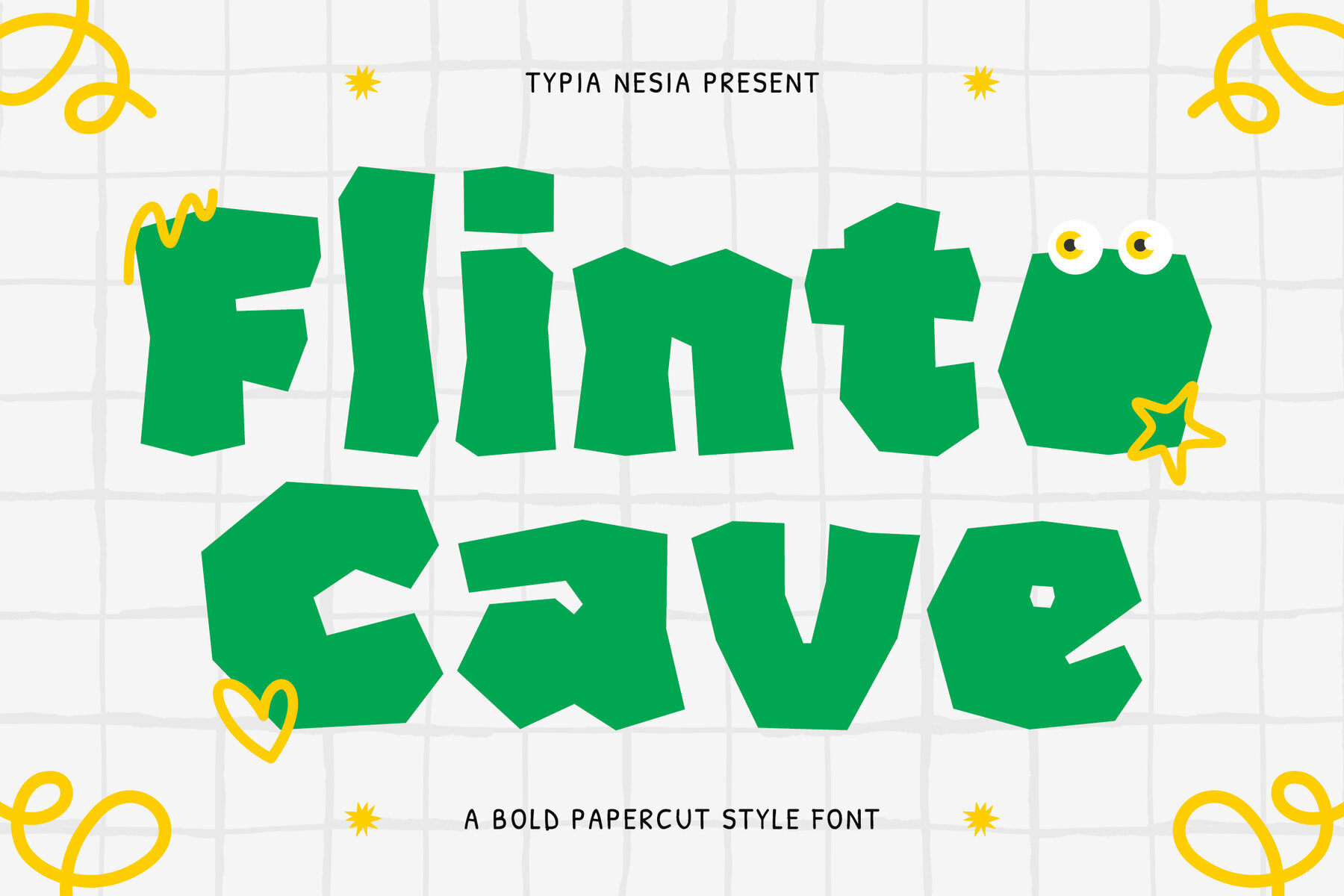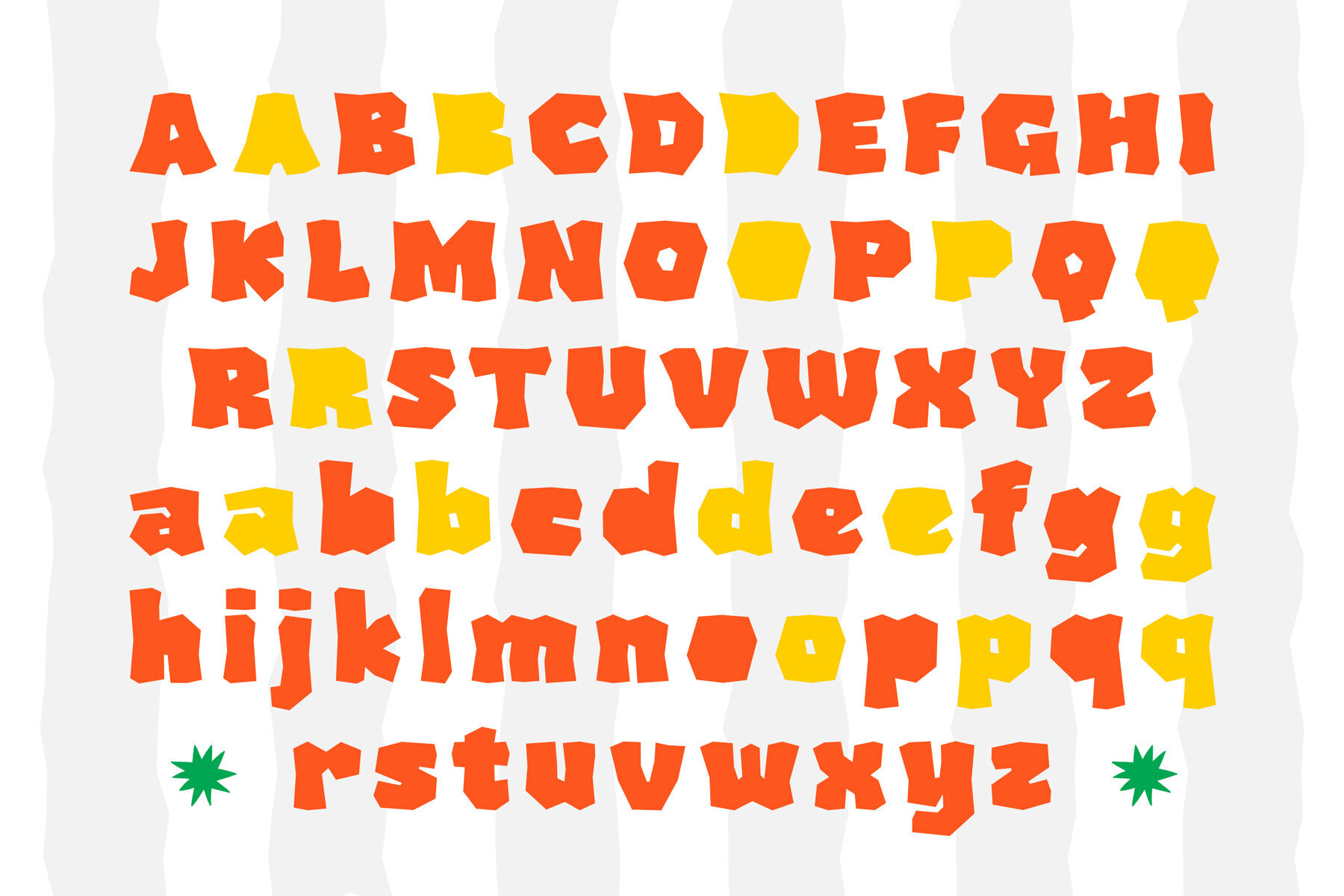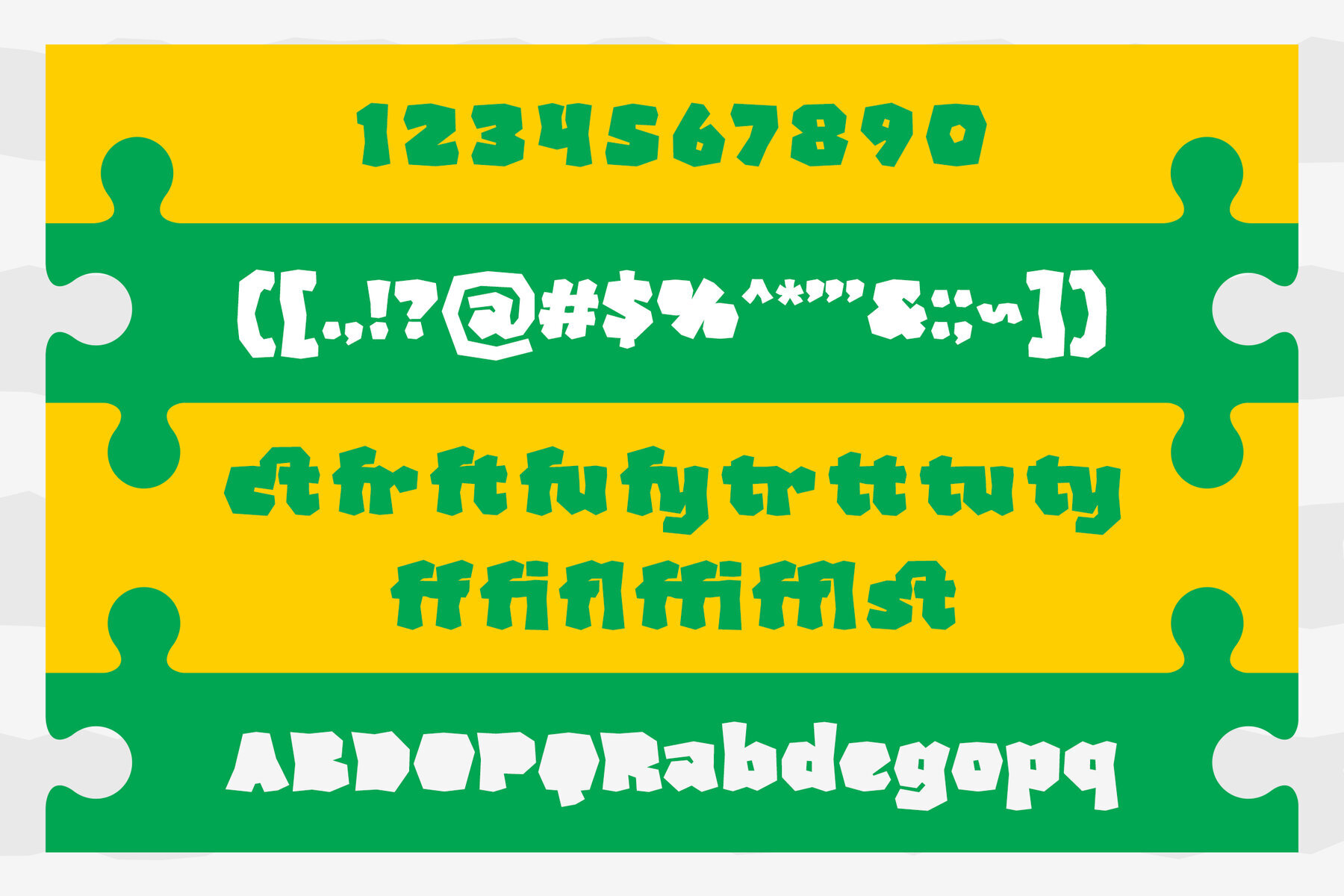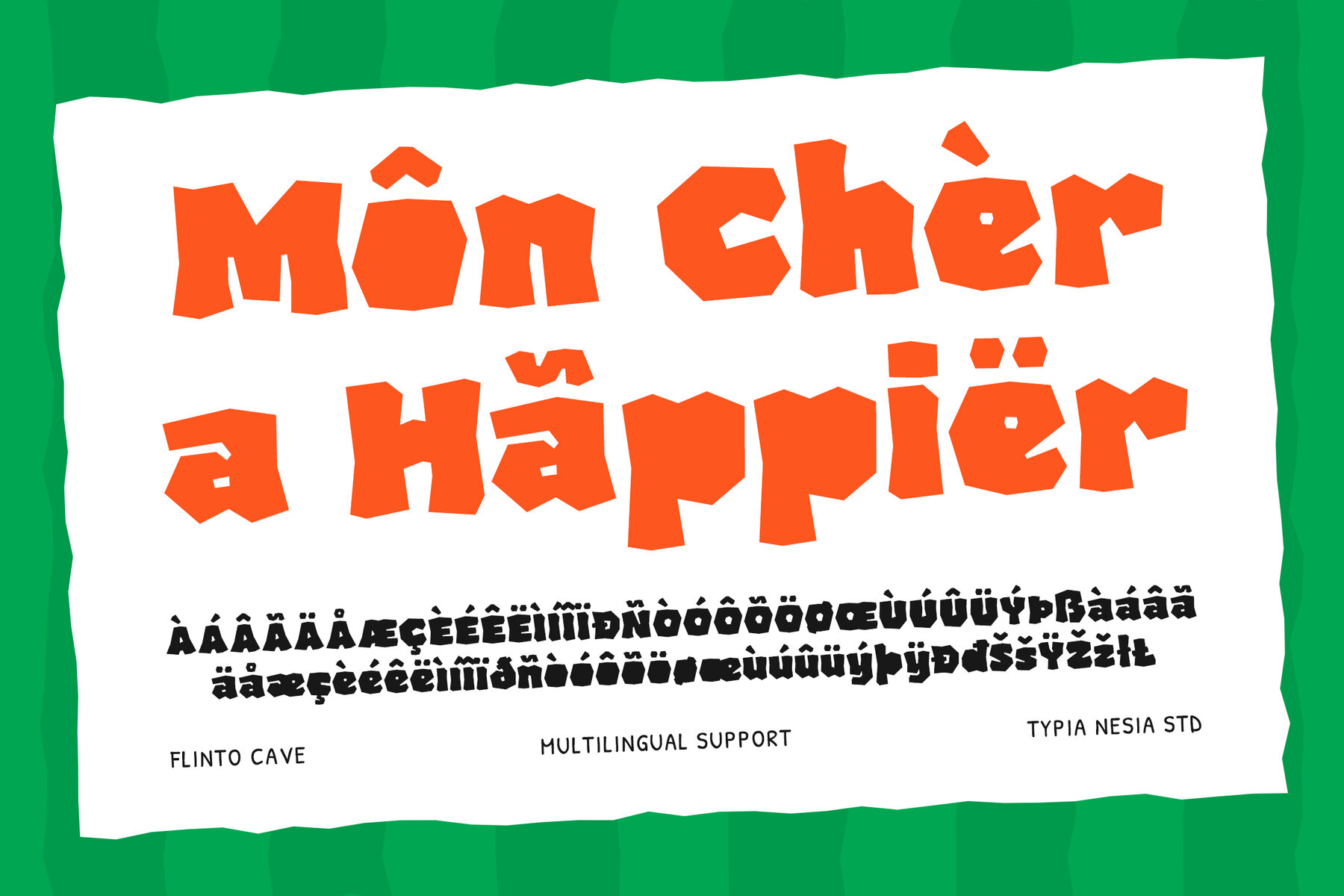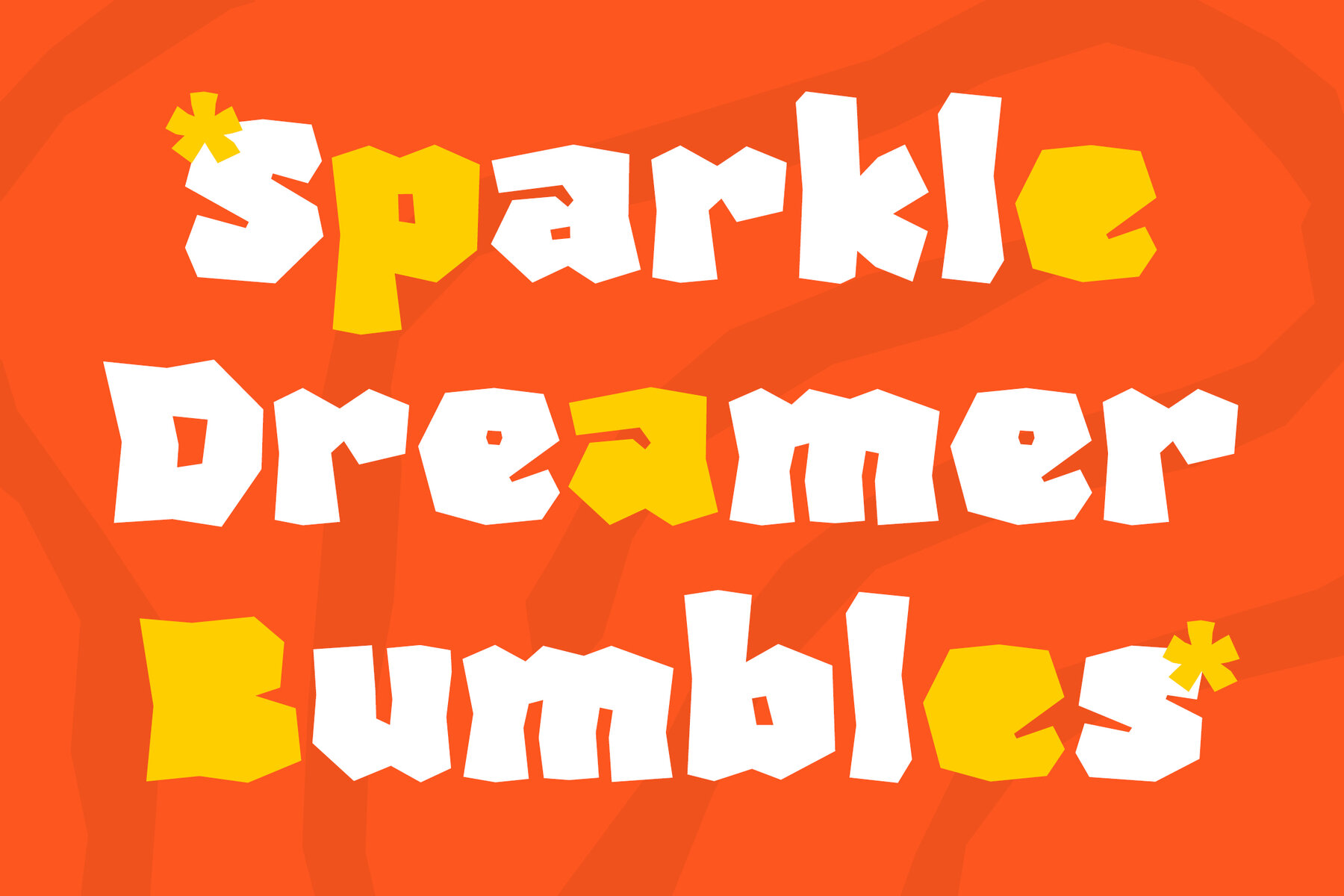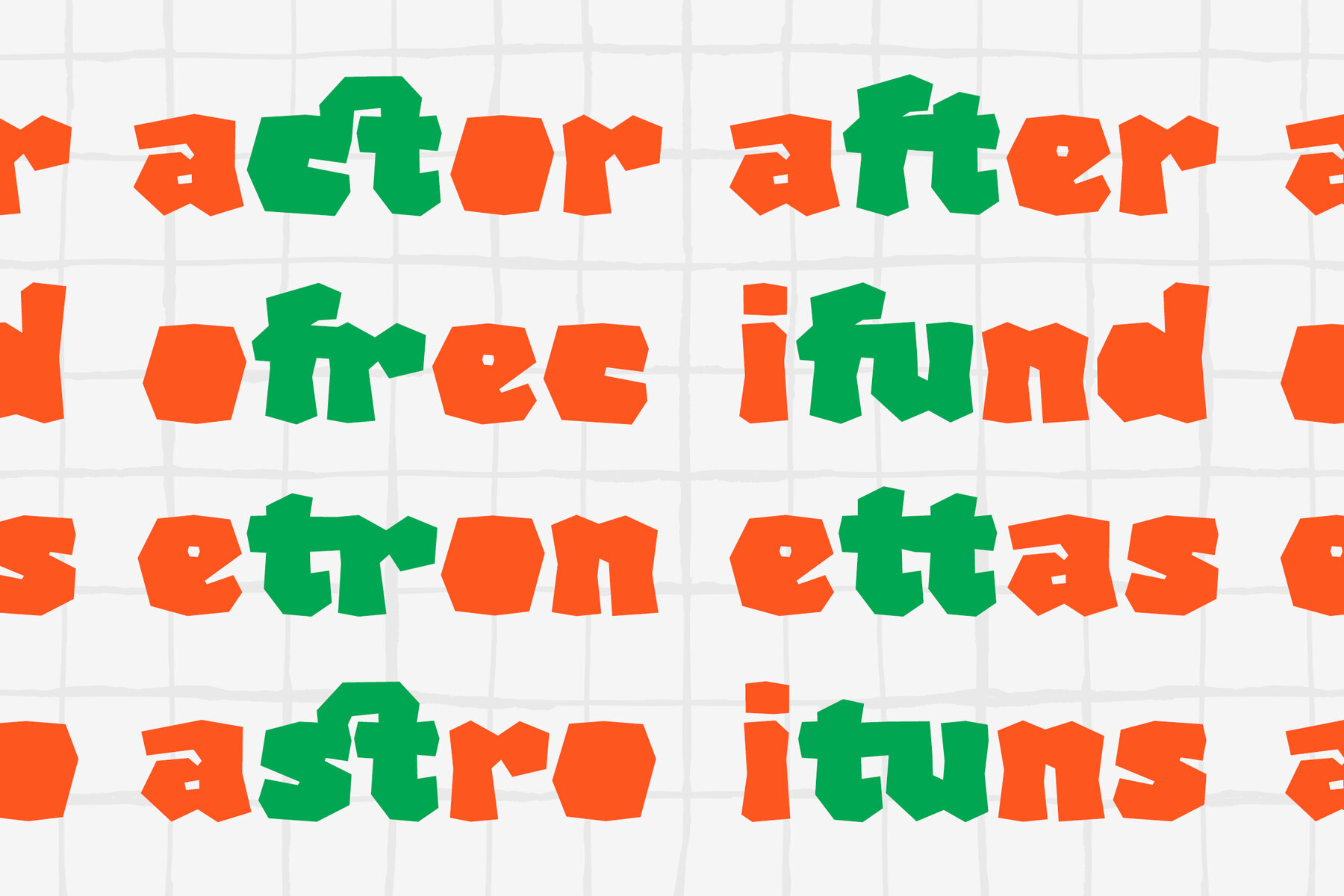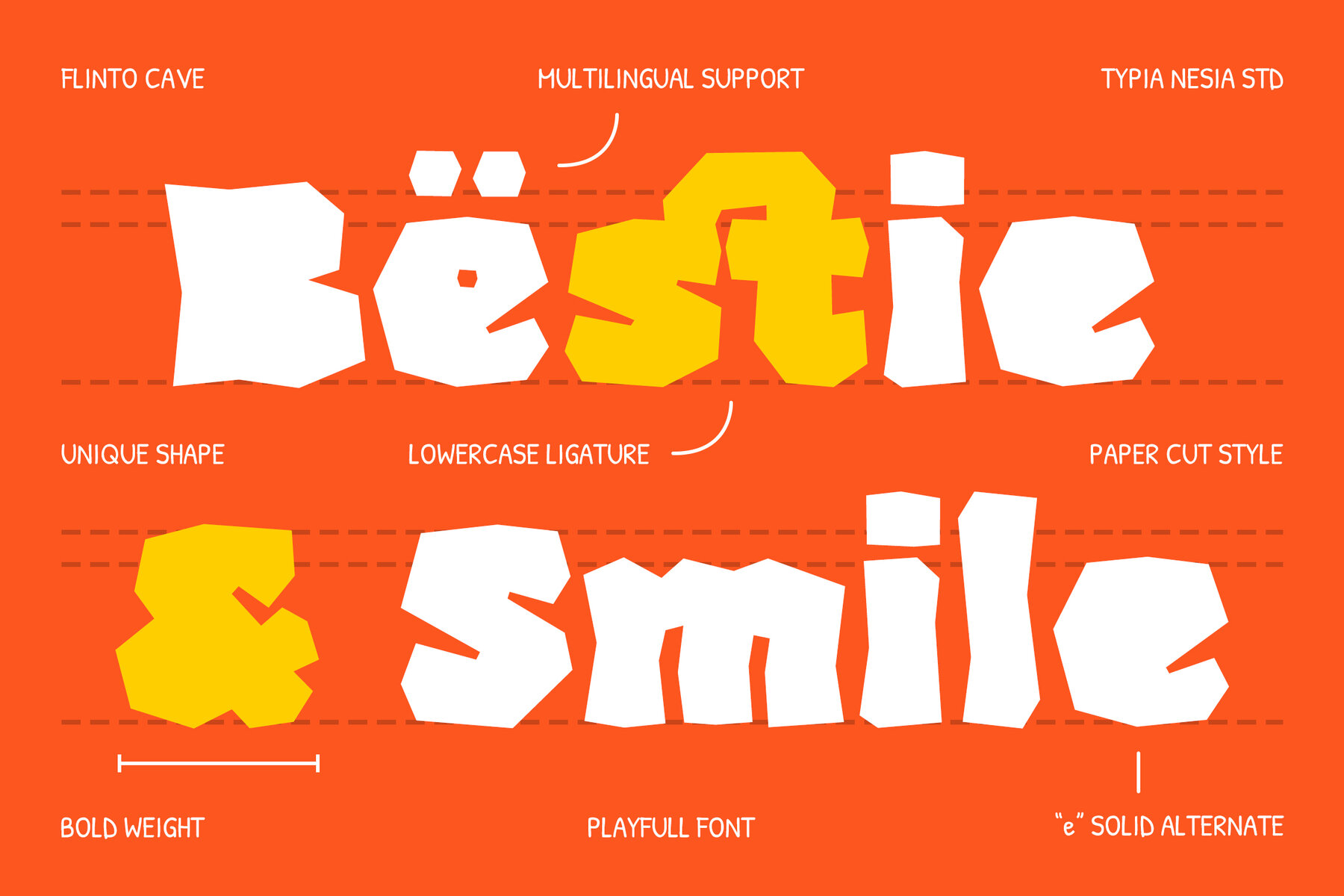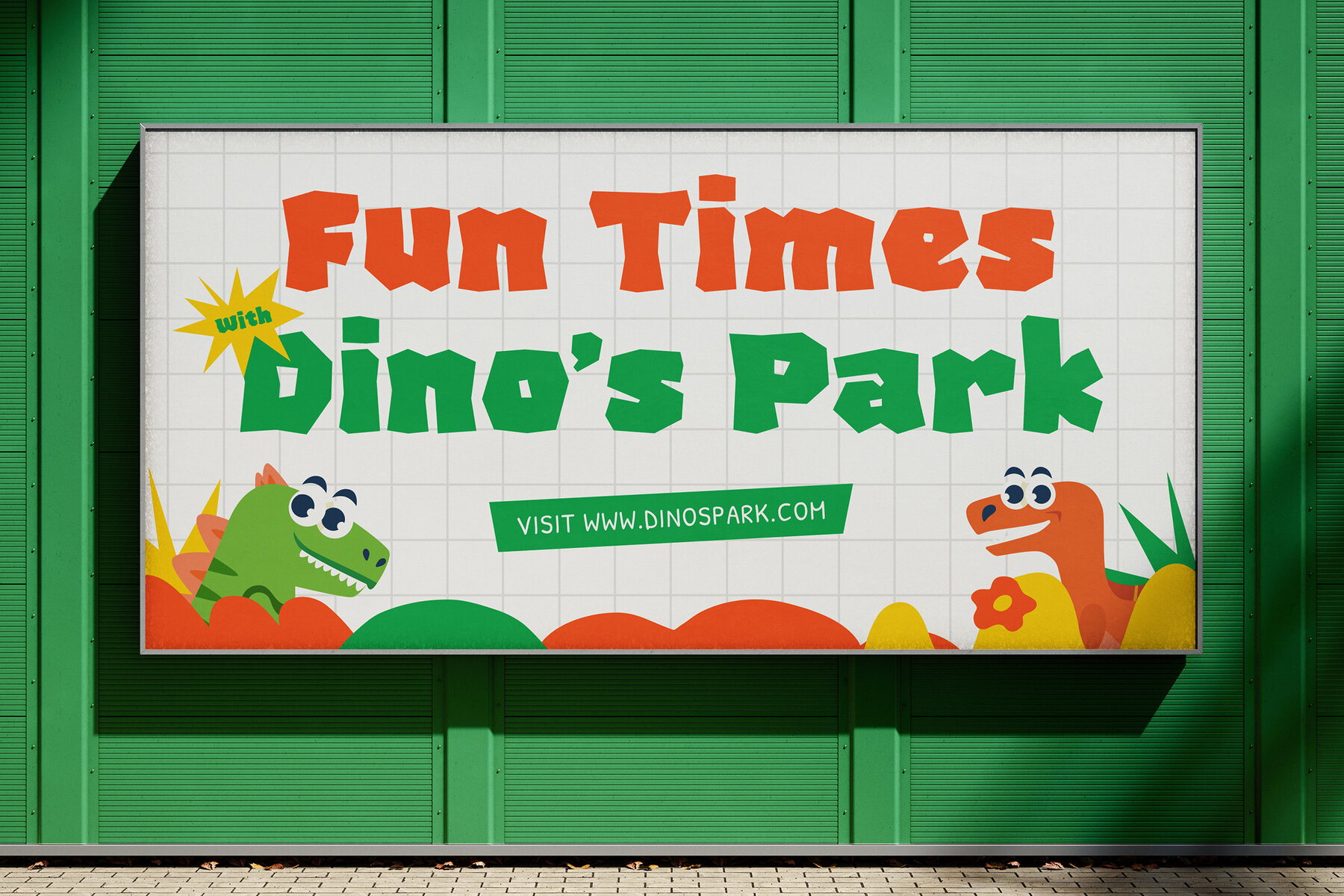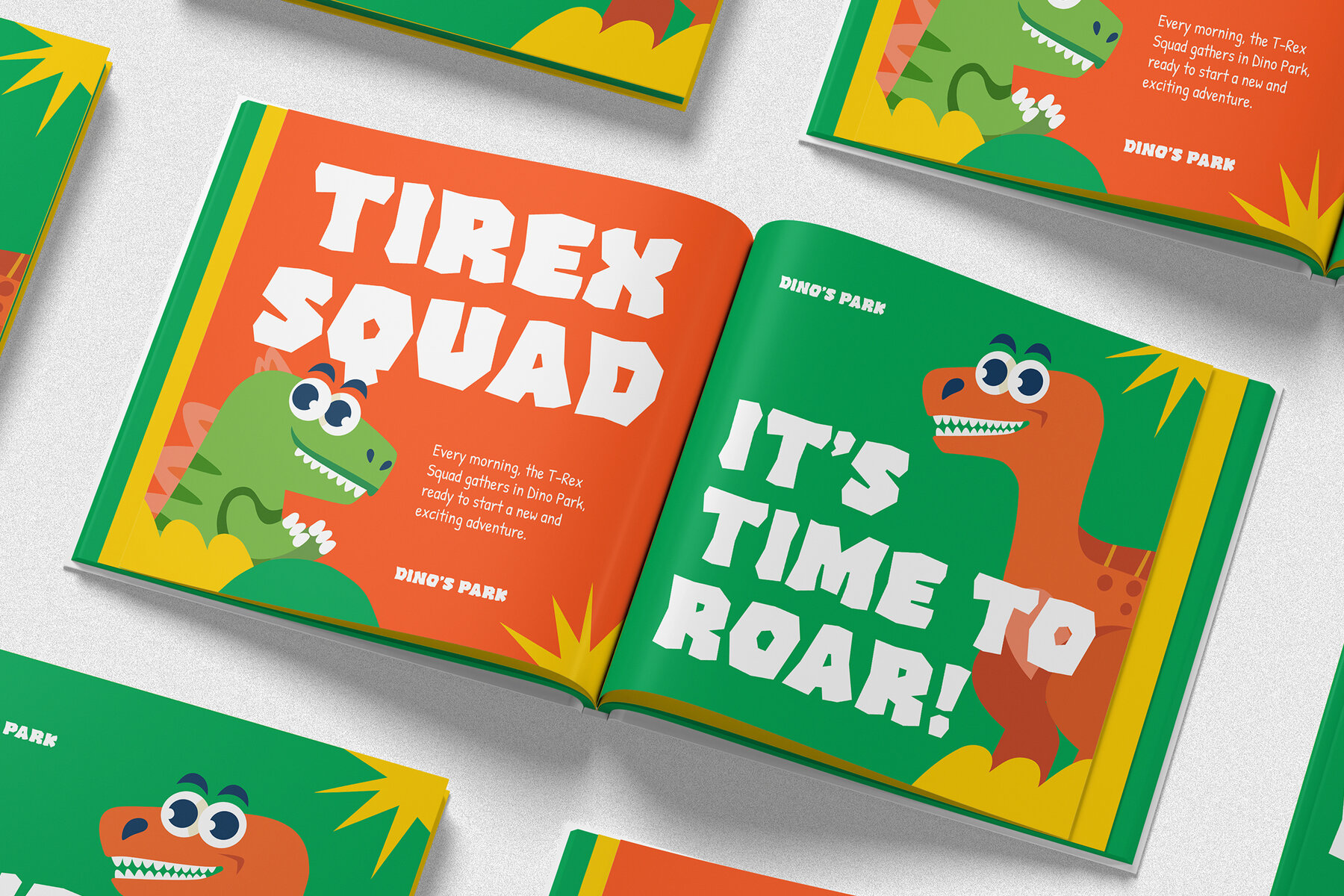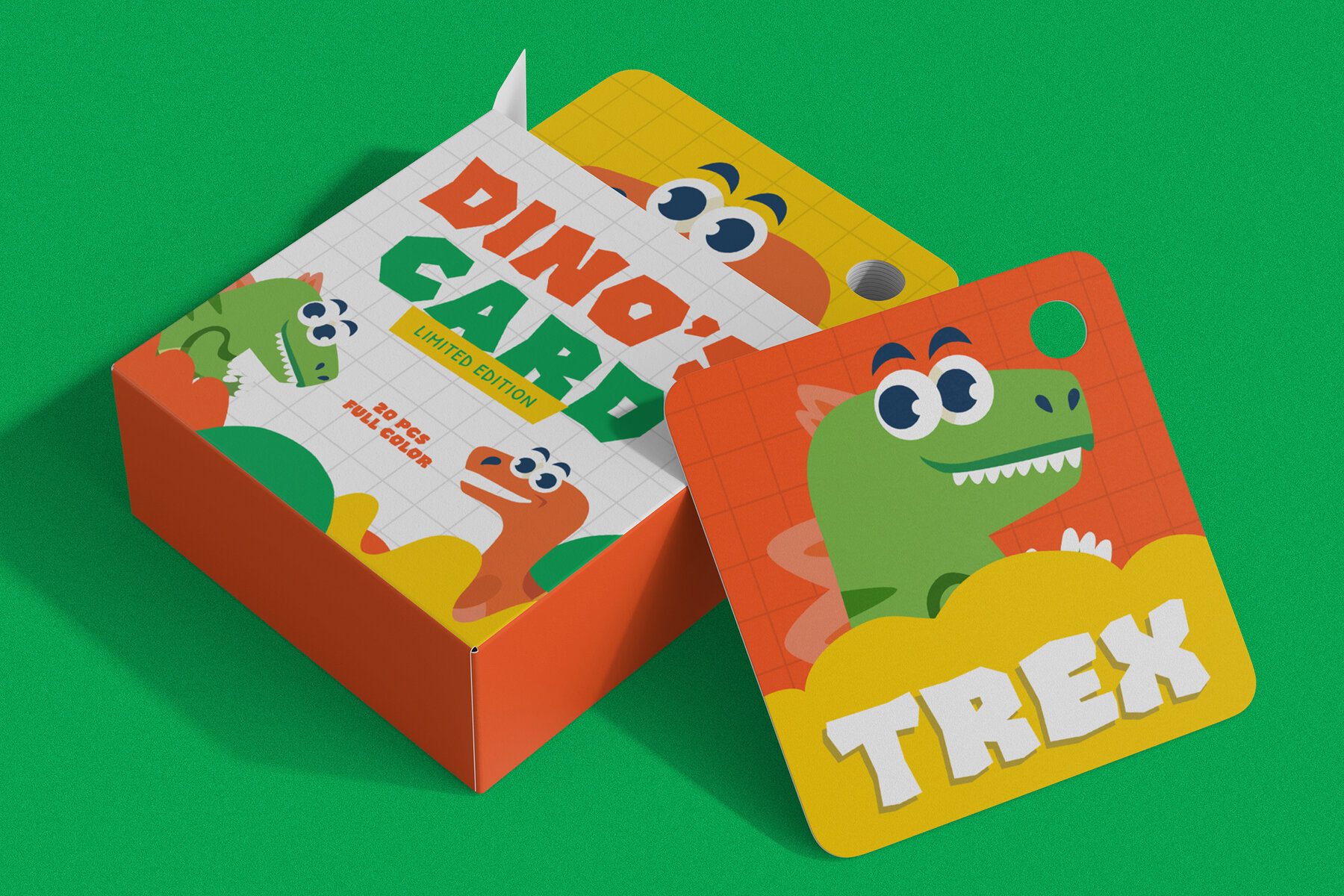
Flinto Cave Font
Flinto Cave Regular
Flinto Cave brings the playful energy and tactile appeal of paper cutout art to the digital sphere. This bold, chunky display font stands out with its handcrafted style, featuring textured forms that echo the warmth and creativity of papercraft. Designed for those who appreciate distinctive details, Flinto Cave offers versatility for projects where character and a relaxed, approachable mood are essential. The typeface is particularly suited for book covers, educational materials, cartoon branding, and packaging—ideal for products that relate to children or embrace a sense of fun. Its robust shapes and whimsical details also lend themselves to logos for cafes, bakeries, or coffee shops. The font’s lively aesthetic makes it a fitting solution for game titles, arcade projects, or retro-inspired applications, where a touch of handmade flair and a hint of nostalgia elevate the visual appeal. Flinto Cave’s textured surface engages audiences and ensures your design remains memorable in a crowded visual landscape.Flinto Cave: Bold Papercut Display Font With Handmade Charm